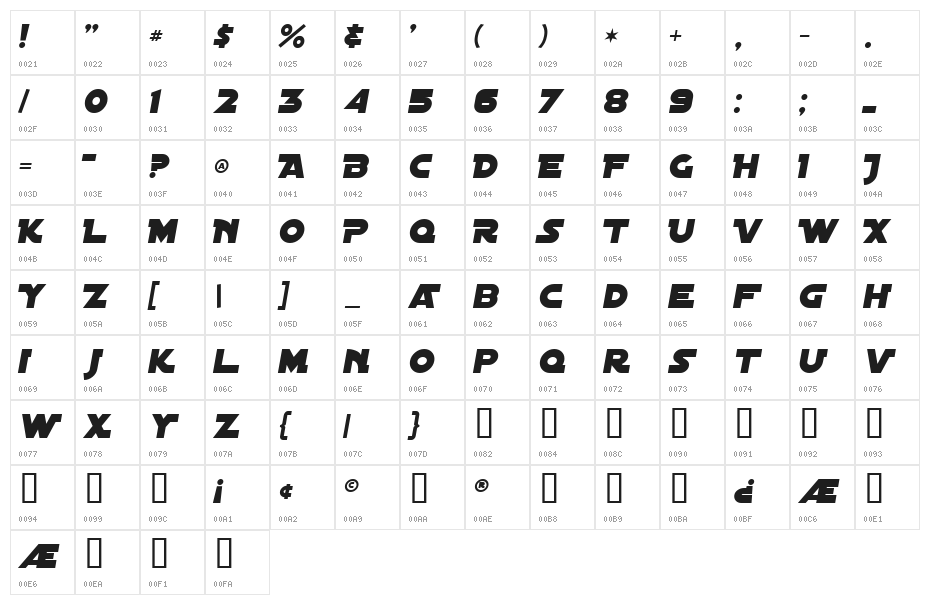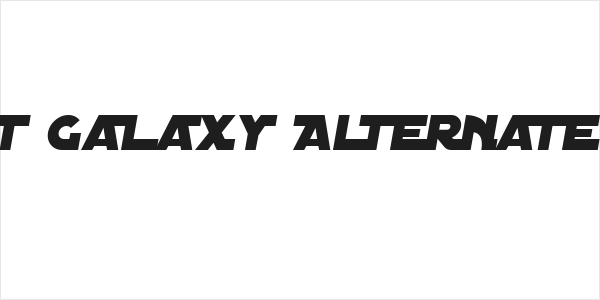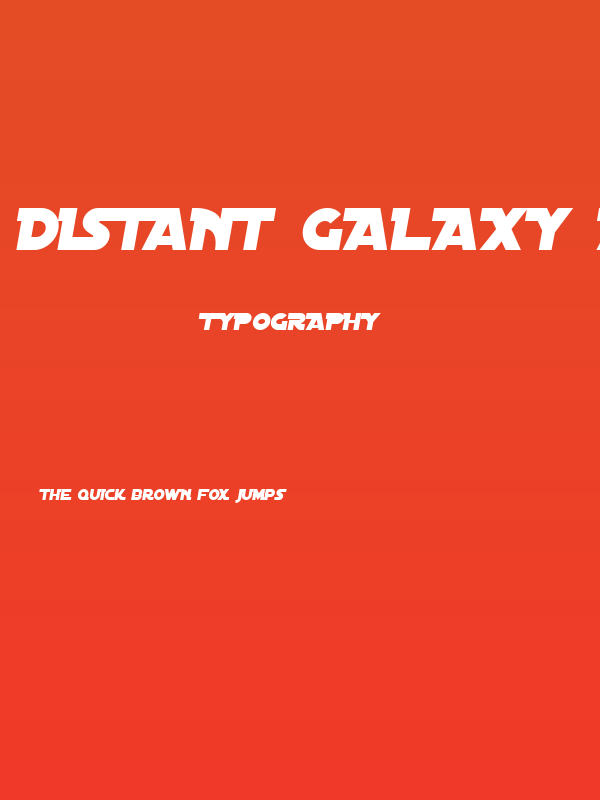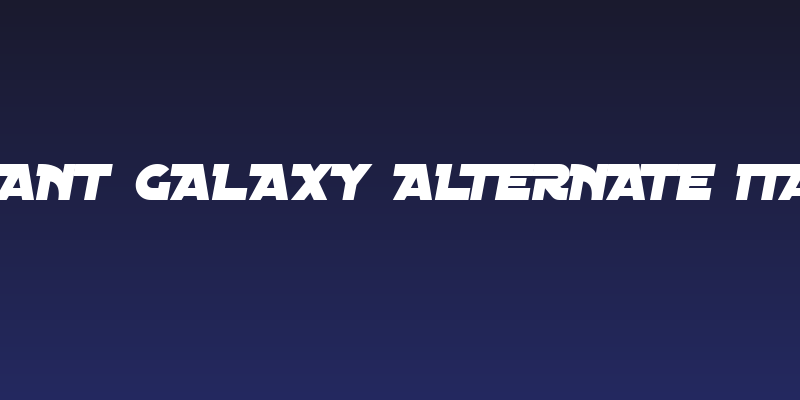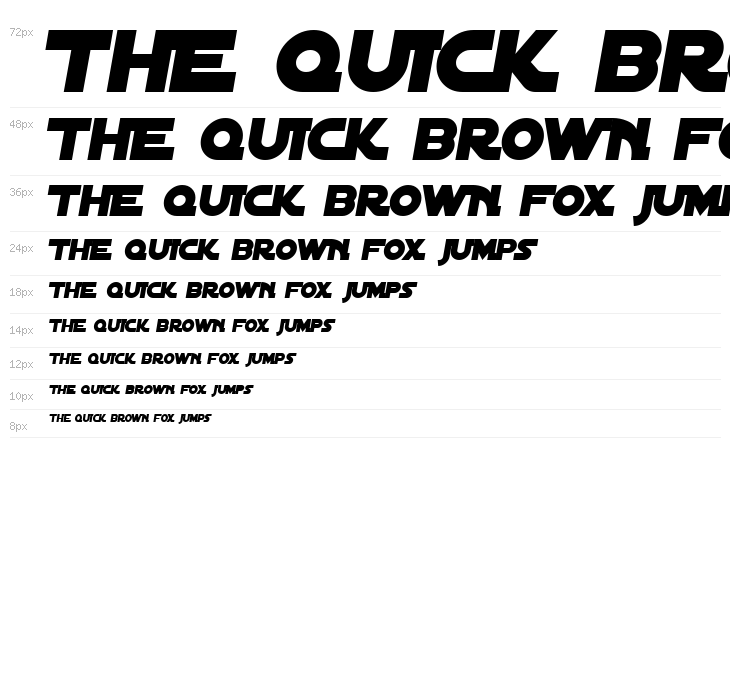
Distant Galaxy Alternate Italic Font
Distant Galaxy Alternate Italic Description
This font features a bold, futuristic design with sharp, angular edges and a distinct italic slant. The characters are wide and have a strong presence, making them suitable for impactful headlines and titles. The uppercase and lowercase letters maintain a consistent style, with unique geometric shapes that add a modern touch. The numbers and special characters follow the same design principles, ensuring uniformity across all elements. The font's dynamic appearance is ideal for projects that require a sense of speed and innovation.
| Proposed Projects | Ideal for sci-fi themed projects, video game titles, technology branding, and dynamic posters. |